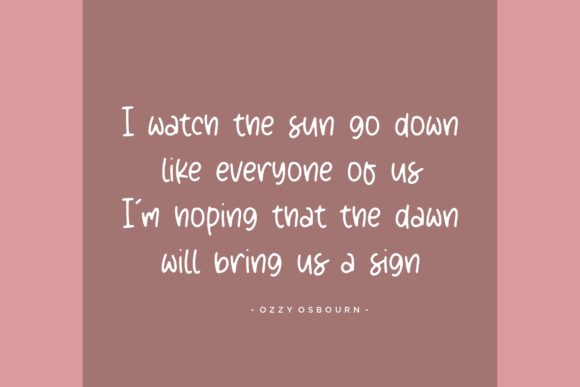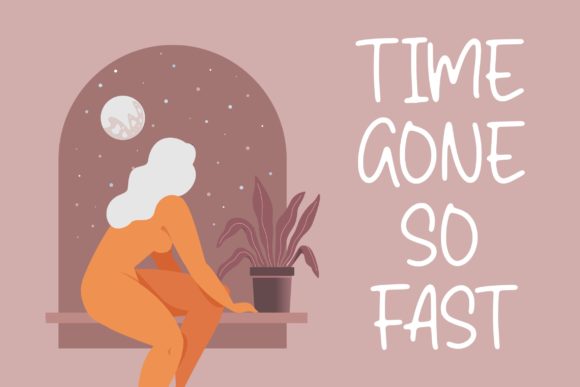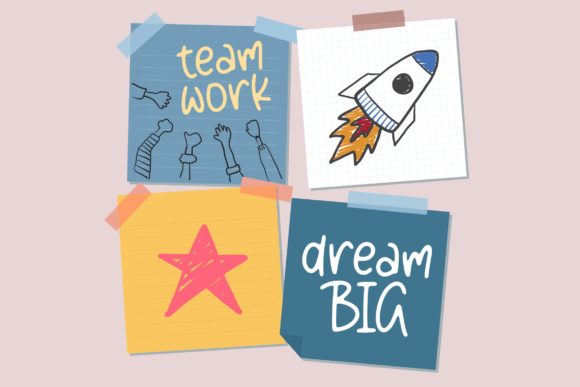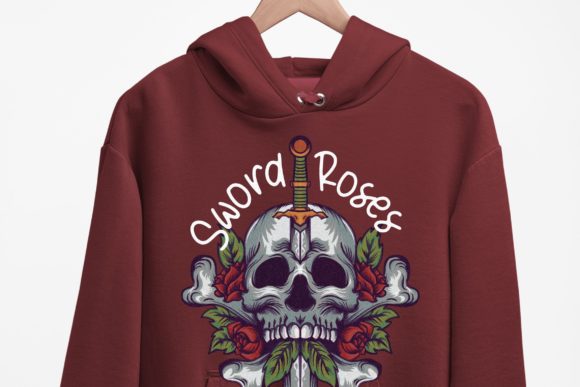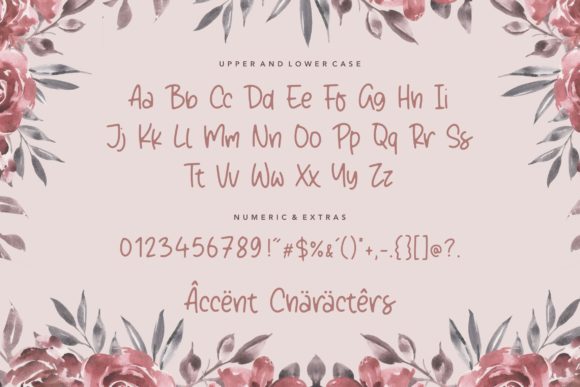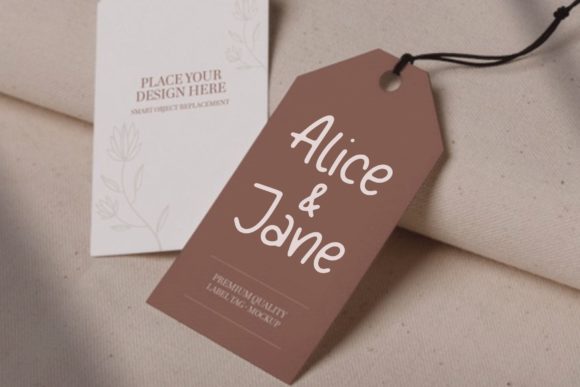
Introducing Buckley Font: A Simple and Natural Handwritten Style
Are you looking for a font that exudes simplicity and a natural touch? Look no further than the Buckley font. This beautiful handwritten font is perfect for a wide range of design projects, from branding and product packaging to invitations, quotes, and more. In this article, we’ll dive into the world of Buckley font and explore its features, uses, and benefits for designers and crafters.
What is Buckley Font?
Buckley is a simple and natural handwritten font that has gained popularity among designers and crafters. Its unique charm lies in its effortless and flowing script, which gives it a personal and approachable feel. The font is designed to be versatile and can be used for various design projects, including logos, posters, labels, and t-shirts.
Key Features of Buckley Font
- Simple and Natural: Buckley font boasts a simple and natural look that makes it perfect for designs that require a personal touch.
- Handwritten Style: The font features a beautiful handwritten script that adds a touch of elegance and sophistication to any design.
- Versatile: Buckley font can be used for a wide range of design projects, from branding and packaging to invitations and quotes.
- Easy to Read: The font is clear and easy to read, making it perfect for designs that require a high level of legibility.
Uses of Buckley Font
Buckley font is suitable for a variety of design projects, including:
- Branding: Use Buckley font to create a unique and memorable brand identity that stands out from the crowd.
- Product Packaging: Add a personal touch to your product packaging with Buckley font, making it more appealing to customers.
- Invitations: Create beautiful and elegant invitations for special occasions, such as weddings, birthdays, and baby showers.
- Quotes: Use Buckley font to create inspiring and motivational quotes that can be shared on social media or used in designs.
- T-Shirts: Design unique and stylish t-shirts with Buckley font, perfect for personal use or as a gift.
- Labels: Create custom labels for products, files, or folders with Buckley font, adding a touch of personality to your designs.
- Posters: Design eye-catching posters with Buckley font, perfect for advertising, promoting events, or sharing messages.
- Logos: Use Buckley font to create a simple yet effective logo that represents your brand or business.
Benefits of Using Buckley Font
Using Buckley font in your designs offers several benefits, including:
- Unique Look: Buckley font provides a unique and distinctive look that sets your designs apart from others.
- Flexibility: The font is versatile and can be used for various design projects, making it a great addition to your font library.
- High-Quality: The font is designed to be high-quality, ensuring that your designs look professional and polished.
Tips for Using Buckley Font
Here are some tips for using Buckley font in your designs:
- Experiment with Colors: Try pairing Buckley font with different colors to create unique and eye-catching designs.
- Mix and Match: Combine Buckley font with other fonts to create interesting and dynamic designs.
- Pay Attention to Spacing: Make sure to adjust the spacing between letters and words to ensure that your design looks balanced and visually appealing.
- Use it for Headings: Use Buckley font for headings and titles to add a touch of elegance and sophistication to your designs.
In conclusion, Buckley font is a simple and natural handwritten font that is perfect for designers and crafters looking for a unique and versatile font. Its effortless and flowing script makes it suitable for a wide range of design projects, from branding and packaging to invitations and quotes. With its ease of use, high-quality design, and flexibility, Buckley font is a great addition to any font library.